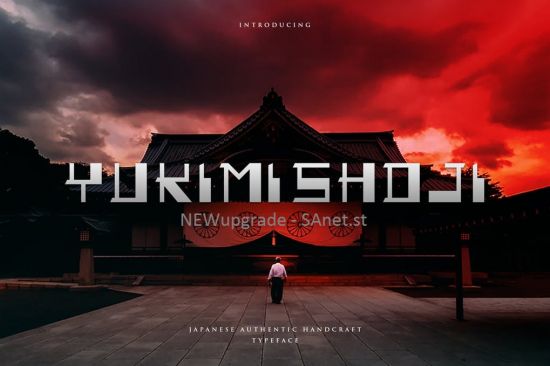
Introducing Yukimi Shoji font. Are you looking for a bold and solid display font that has authentic japanese traditional feeling? We can help! Try to download our Yukimi Shoji font. The font is suitable to use for many occasion such as traveling, poetry, movie title, book title, brand identity, and many more. We provide you with solid and outline version :)